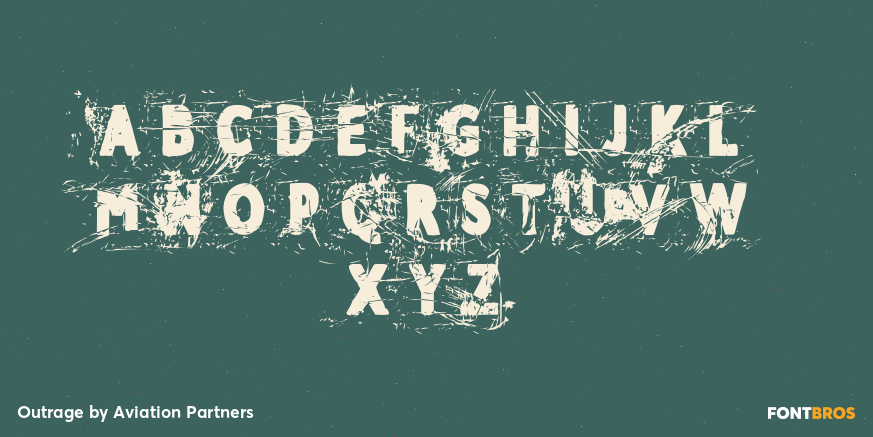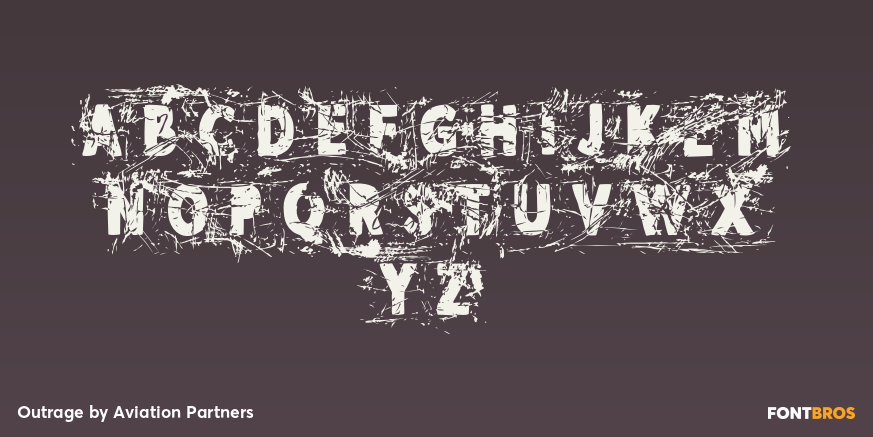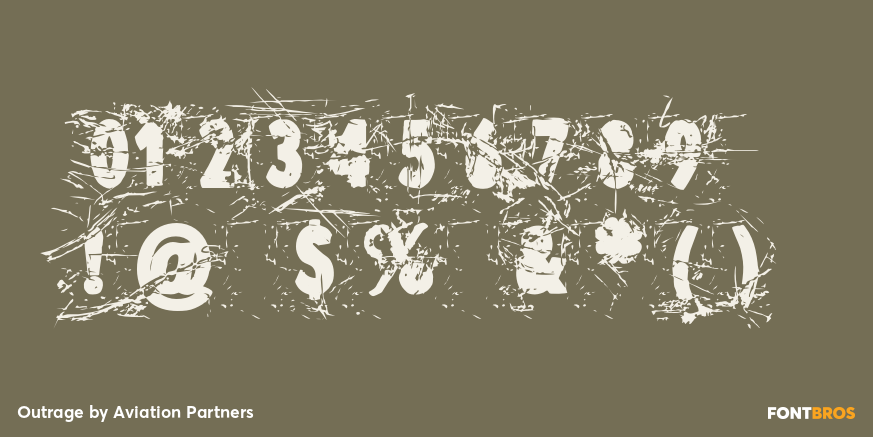
Outrage
Font Family by Aviation Partners
Outrage is highly disfigured to the verge of illegibility.
The base font is Fiendstar Bold Condensed and the distress pattern is derived from a series of semi-abstract paintings.
The result screams.